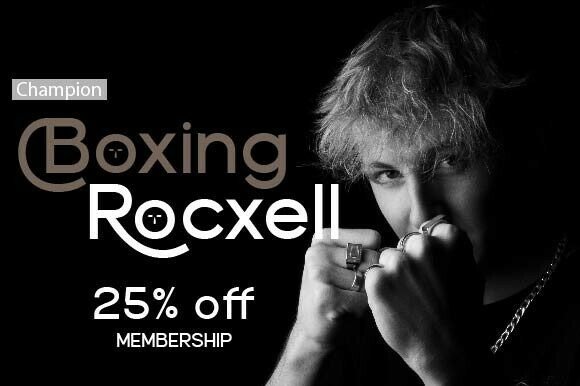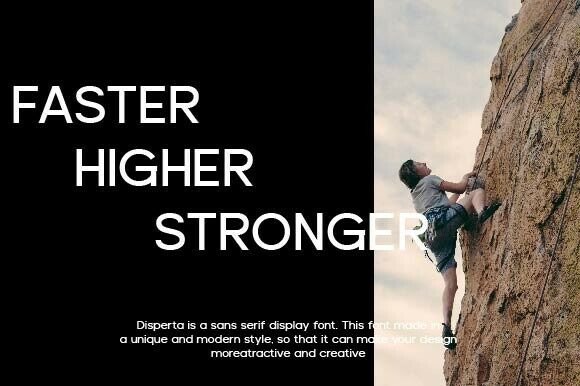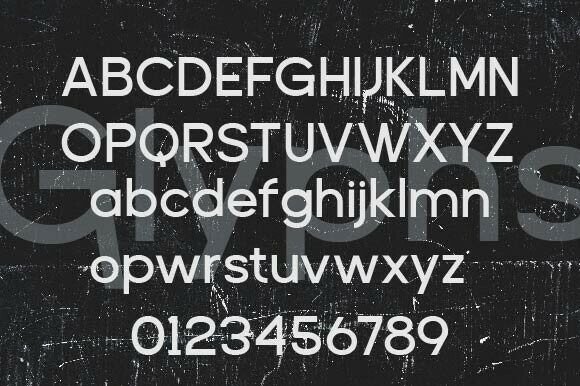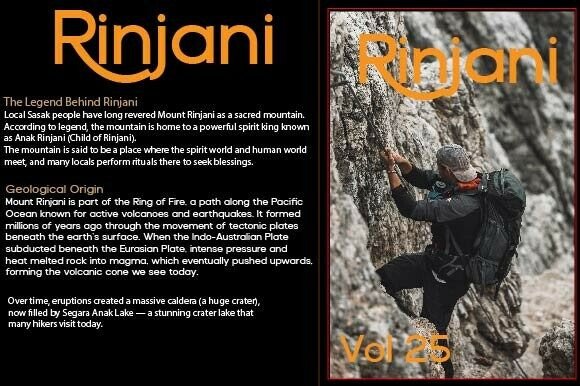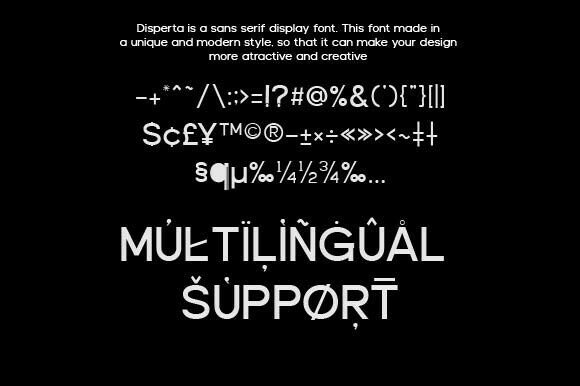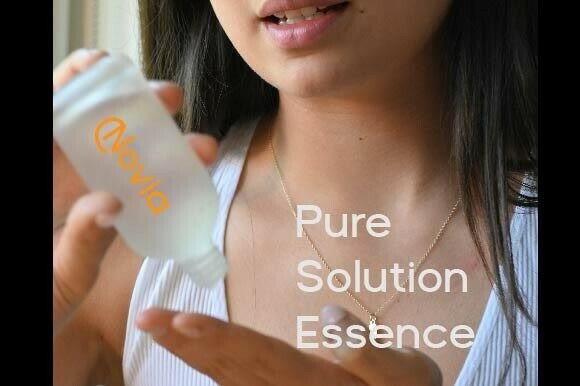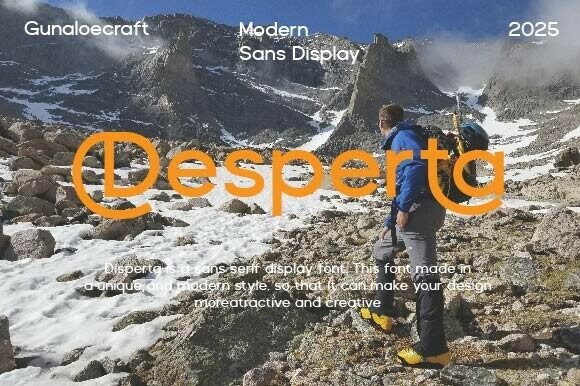
Meet Desperta Font: Elevate Your Designs with Elegance and Power
In the realm of typography, a font can make or break the visual impact of a design. For those seeking a typeface that exudes both elegance and power, look no further than the Desperta font. This sans-serif display typeface is meticulously crafted to bring a modern, dynamic aesthetic to your projects, making it an indispensable asset in your design toolkit.
The Essence of Desperta: A Harmonious Balance
Desperta’s beauty lies in its exquisite balance of robust and delicate strokes. This harmonious marriage of contrasting elements results in a typeface that is not only visually striking but also remarkably versatile. Whether you’re aiming to create impactful branding elements, catchy headlines, or stand-out display pieces, Desperta is the perfect choice. Its sleek lines and contemporary vibe ensure that your message is presented with unwavering assurance, capturing the attention of your audience and leaving a lasting impression.
Design Characteristics: A Modern, Dynamic Aesthetic
Desperta’s design characteristics are what set it apart from other typefaces. Its sans-serif design ensures a clean and modern look, while its carefully balanced strokes add a touch of sophistication and elegance. The font’s dynamic aesthetic makes it perfect for a wide range of design applications, from digital media to print materials. Whether you’re designing a logo, brochure, or website, Desperta’s versatility ensures that it will seamlessly adapt to your design context.
Applications: Where to Use Desperta Font
Desperta’s versatility is one of its greatest strengths, making it suitable for various design applications. Here are some of the ideal use cases for this exceptional typeface:
- Branding Elements: Use Desperta to create memorable logos, business cards, and letterheads that reflect your brand’s personality and values.
- Headlines and Titles: Add a touch of elegance and sophistication to your headlines and titles with Desperta’s sleek lines and modern aesthetic.
- Display Pieces: Create stand-out display pieces, such as posters, billboards, and signage, that demand attention and leave a lasting impression.
- Digital Media: Use Desperta in digital media, including social media graphics, website headers, and email newsletters, to add a touch of sophistication and professionalism.
Why Choose Desperta Font?
With so many typefaces available, why choose Desperta? Here are just a few reasons why Desperta stands out from the crowd:
- Unique Aesthetic: Desperta’s harmonious balance of robust and delicate strokes creates a unique and visually striking aesthetic.
- Versatility: Desperta seamlessly adapts to various design contexts, making it a versatile asset in your design toolkit.
- Modern and Dynamic: Desperta’s modern, dynamic aesthetic ensures that your designs look contemporary and engaging.
- Elegance and Power: Desperta exudes both elegance and power, making it perfect for designs that require a touch of sophistication and impact.
In conclusion, Desperta font is an exceptional typeface that offers a potent touch of elegance and power to your designs. Its carefully crafted, sans-serif design ensures a modern, dynamic aesthetic that seamlessly adapts to various design contexts. Whether you’re a designer, craftsperson, or simply someone looking to elevate your brand’s visual identity, Desperta is an indispensable asset in your design toolkit. With its unique aesthetic, versatility, and modern vibe, Desperta is the perfect choice for crafting impactful branding elements, catchy headlines, and stand-out display pieces that demand attention and leave a lasting impression.